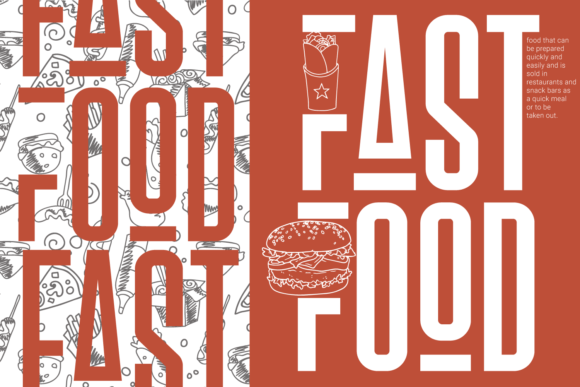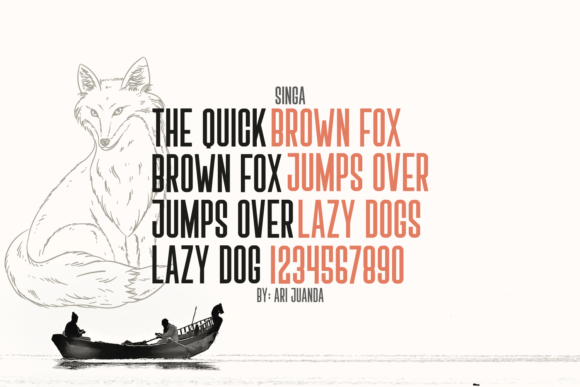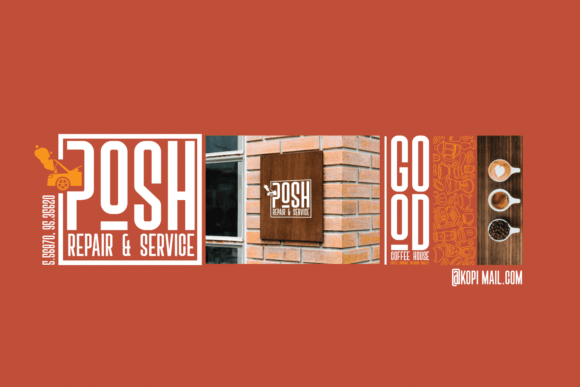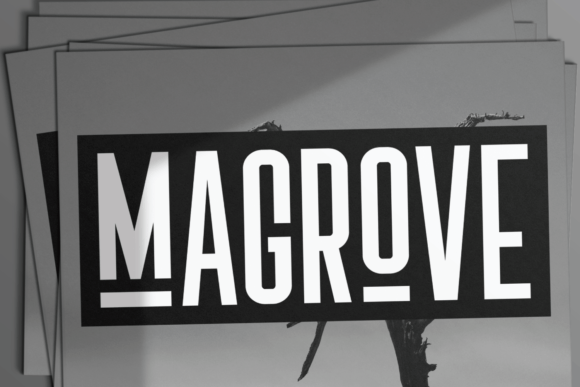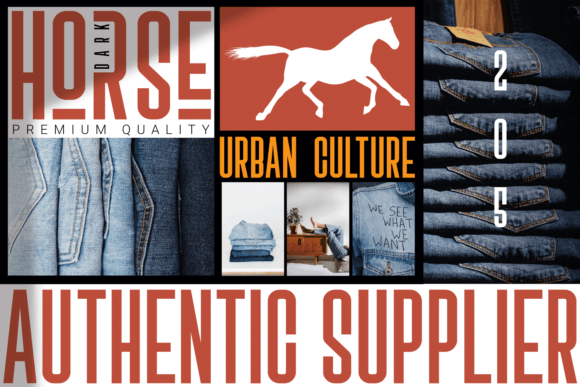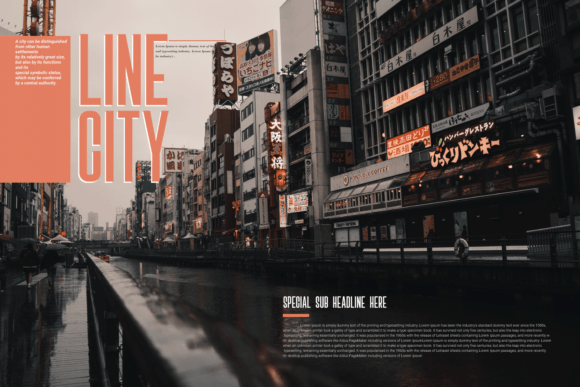
Introduction to Singa Font
Have you ever found yourself stuck in a creative rut, staring at a blank page or screen, searching for the perfect font to bring your vision to life? For many designers, this is a familiar feeling. But what if you could unlock a world of elegant and modern sans serif fonts, effortlessly elevating your designs to the next level?
Enter the Singa Font, a highly versatile and stylish typeface that’s about to become your new go-to design resource. With its minimalist and clean vibe, this font is perfect for a wide range of creative projects, from book covers and magazines to social media posts and invitations. And the best part? You can download it for free, giving you the freedom to experiment and push the boundaries of your creativity.
Key Features of Singa Font
- High-quality, professional font design suitable for various creative projects
- Features a transparent background, allowing for easy customization and composition
- Designed with a high resolution of 300 DPI, ensuring crisp and clear typography
- Suitable for use in a variety of contexts, from digital to print-based creative projects
- Perfect for designers and artists seeking a unique and eye-catching font for their work
Honest Review: Singa Font
I recently had the chance to work with the Singa Font, and I must say it’s a great addition to any designer’s toolkit. This font is perfect for a free download, and it’s available in a range of styles to suit any creative project.
One of the things that stands out about the Singa Font is its high quality design. The characters are crisp and clear, making it perfect for use in logos, headings, and body text. I particularly like that it comes with a transparent background, which makes it easy to customize and use in a variety of design contexts.
- ✨ High-quality design with crisp and clear characters
- ✨ Available in a range of styles to suit any creative project
- ✨ Includes a transparent background for easy customization
- ⚠️ Limited character set – may not be suitable for complex typography
Overall, I’m really impressed with the Singa Font. It’s a great resource for designers who need a high-quality font that’s easy to use and customize. Just be aware of its limitations, and you’ll be all set for your next creative project.
The Singa Font is a versatile design resource that can be used in various projects, including logos, brochures, posters, and social media graphics. It’s also great for creating unique and eye-catching titles, headings, and body text.
Alternatives to Singa Font
Ostrich Sans is a high-quality, modern sans-serif font ideal for creative projects requiring a clean and minimalist look. It’s available for free download with a transparent background, making it a great alternative to Singa Font for designers. When to use: Headings, titles, and body text in digital and print materials.
Comparison: Ostrich Sans has a more geometric and modern feel compared to Singa Font’s elegant and sophisticated look.
Lato is a popular sans-serif font known for its high-quality design and wide range of weights. It’s a great choice for designers looking for a free download with a transparent background. When to use: Headings, titles, and body text in digital and print materials, especially for creative projects requiring a clean and modern look.